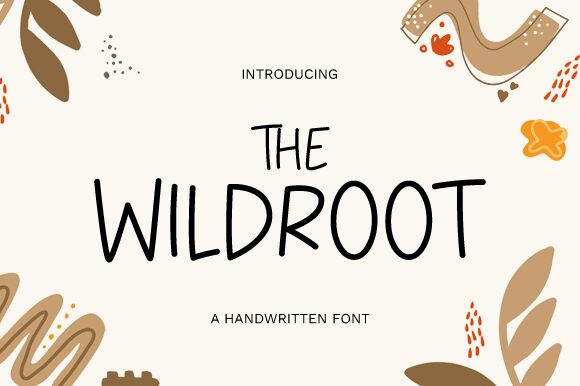
The Wildroot
Dive into the charming embrace of The Wildroot, a creation from the talented minds at Graphix Line Studio. With its handwritten allure and block-style simplicity, this semi-light font transcends the ordinary, bringing a touch of personal authenticity to any project.
Ideal for evoking nostalgia on chalkboard quotes or imparting warmth in educational resources, The Wildroot's cute and unassuming character ensures your designs resonate with a genuine, handcrafted feel. This versatile typeface is the go-to choice for creators seeking to infuse their work with an understated yet captivating personality.
Embrace The Wildroot and let your creative endeavors bloom with its distinctive charm!